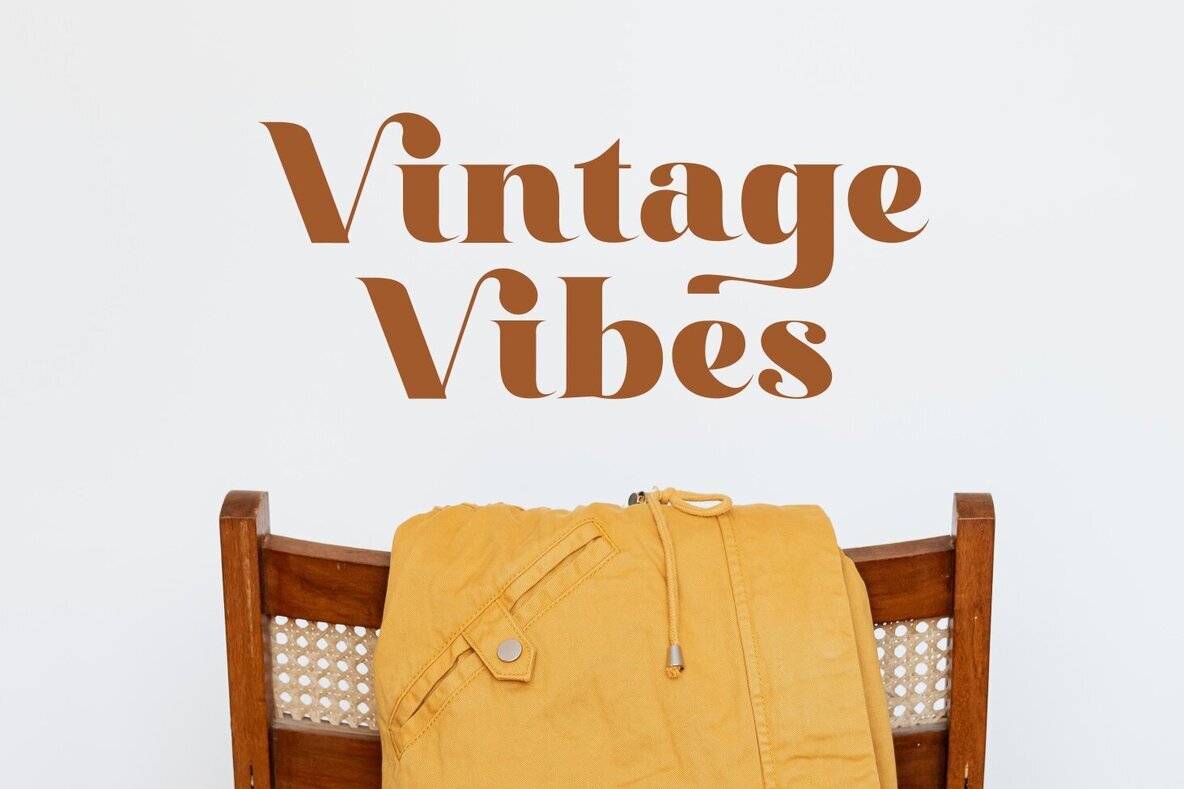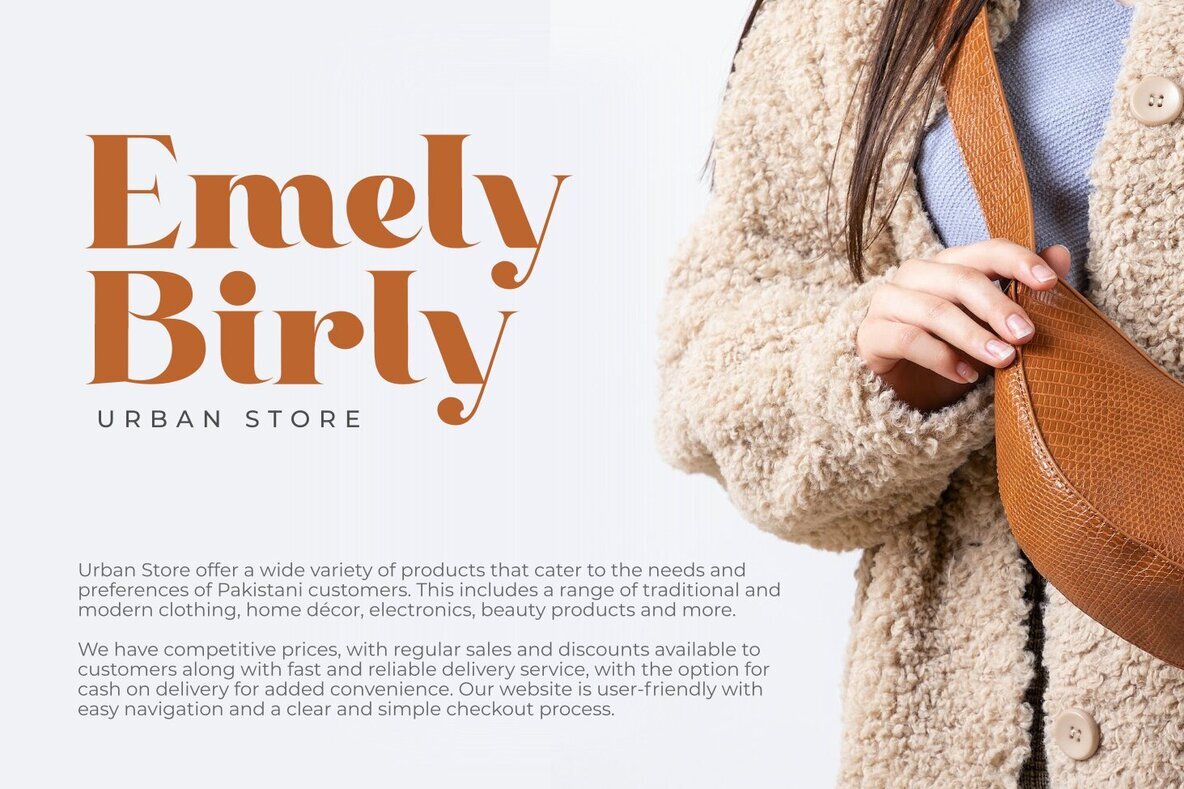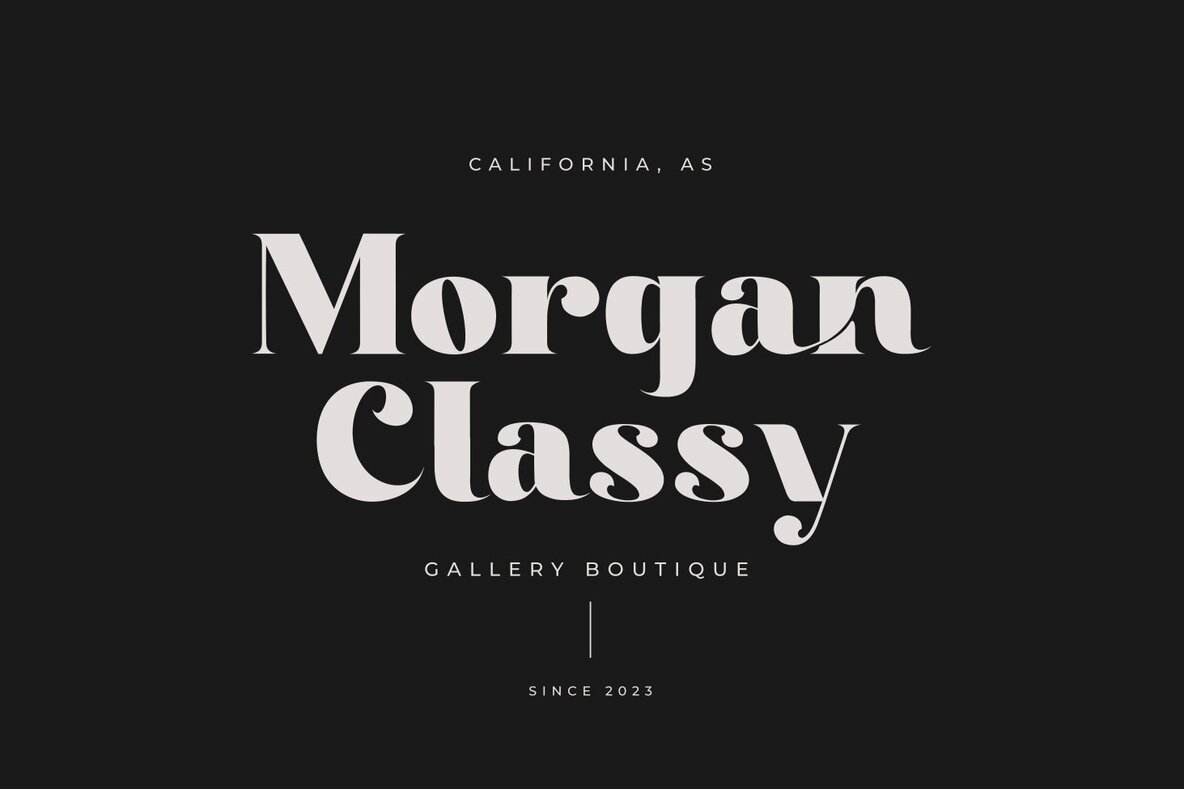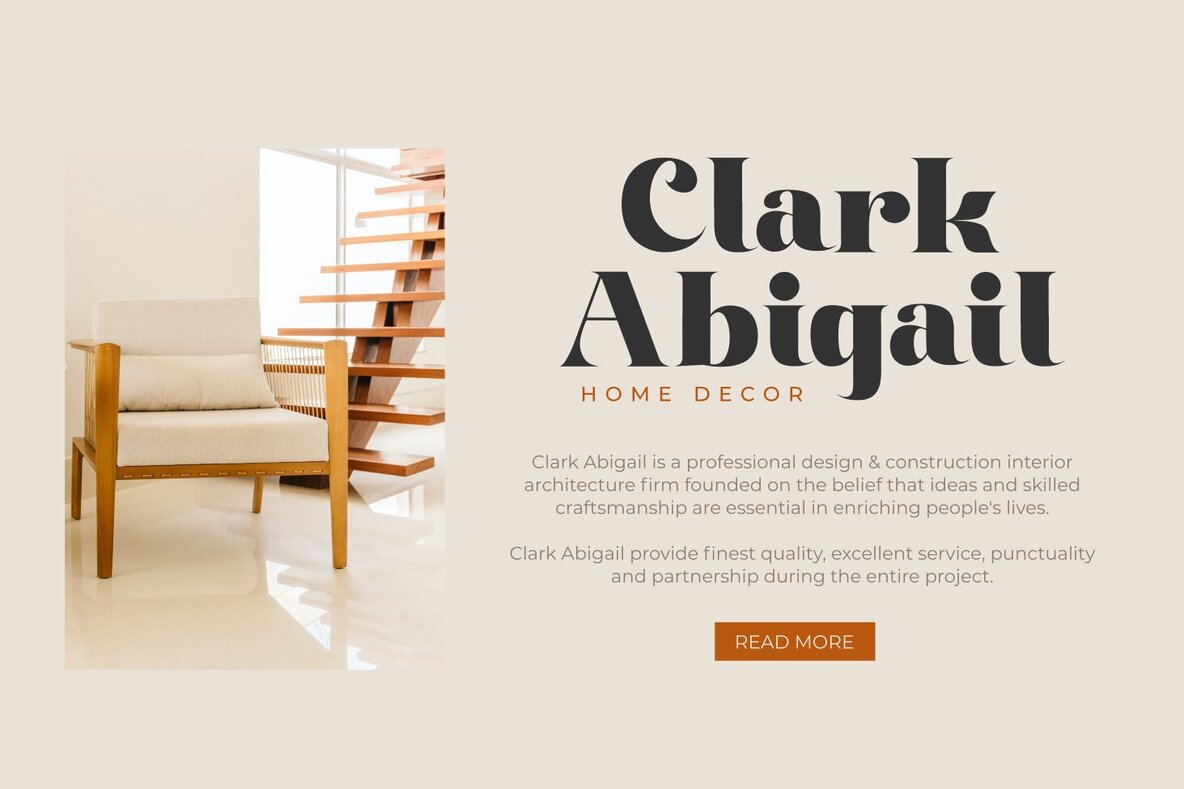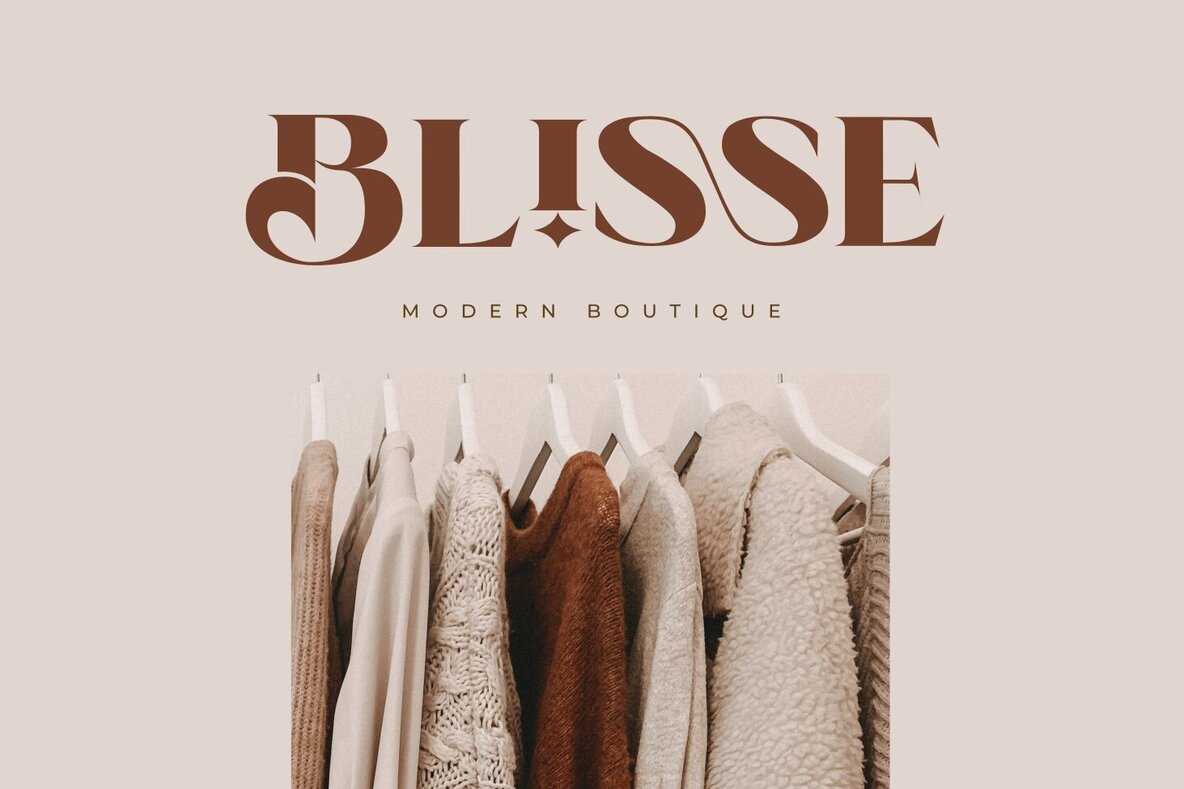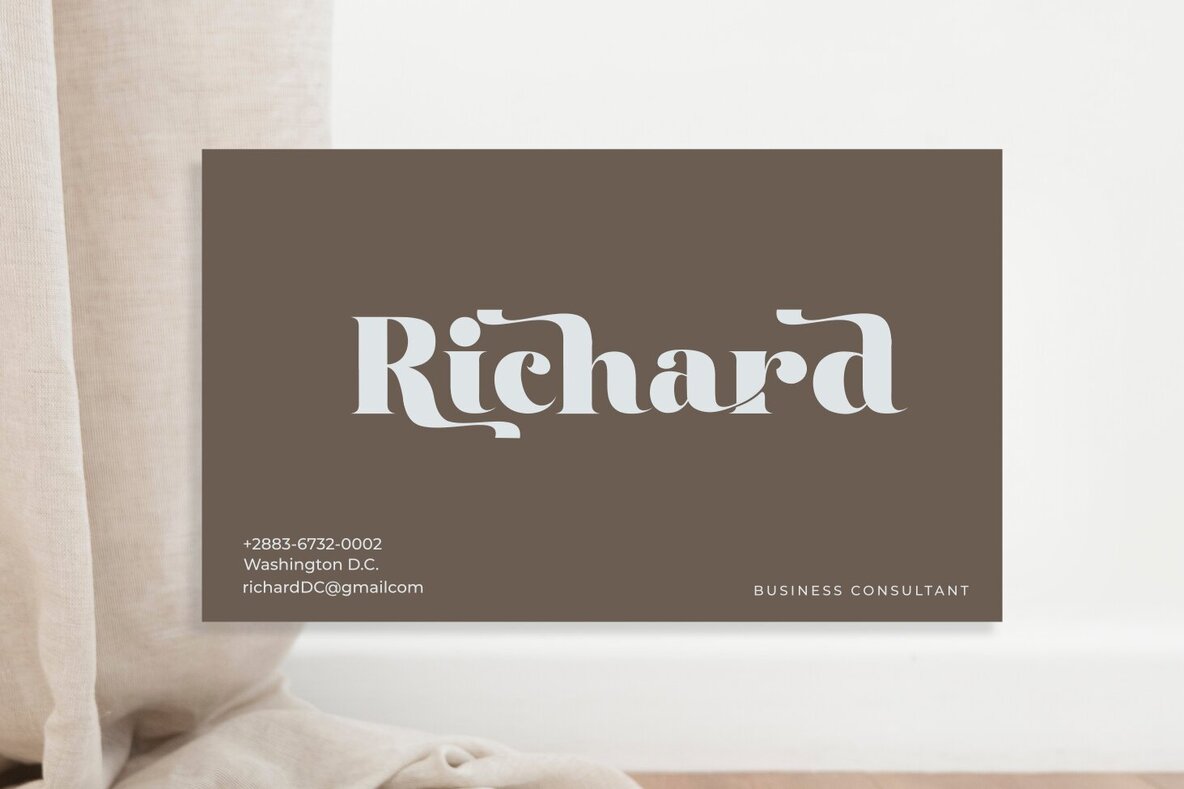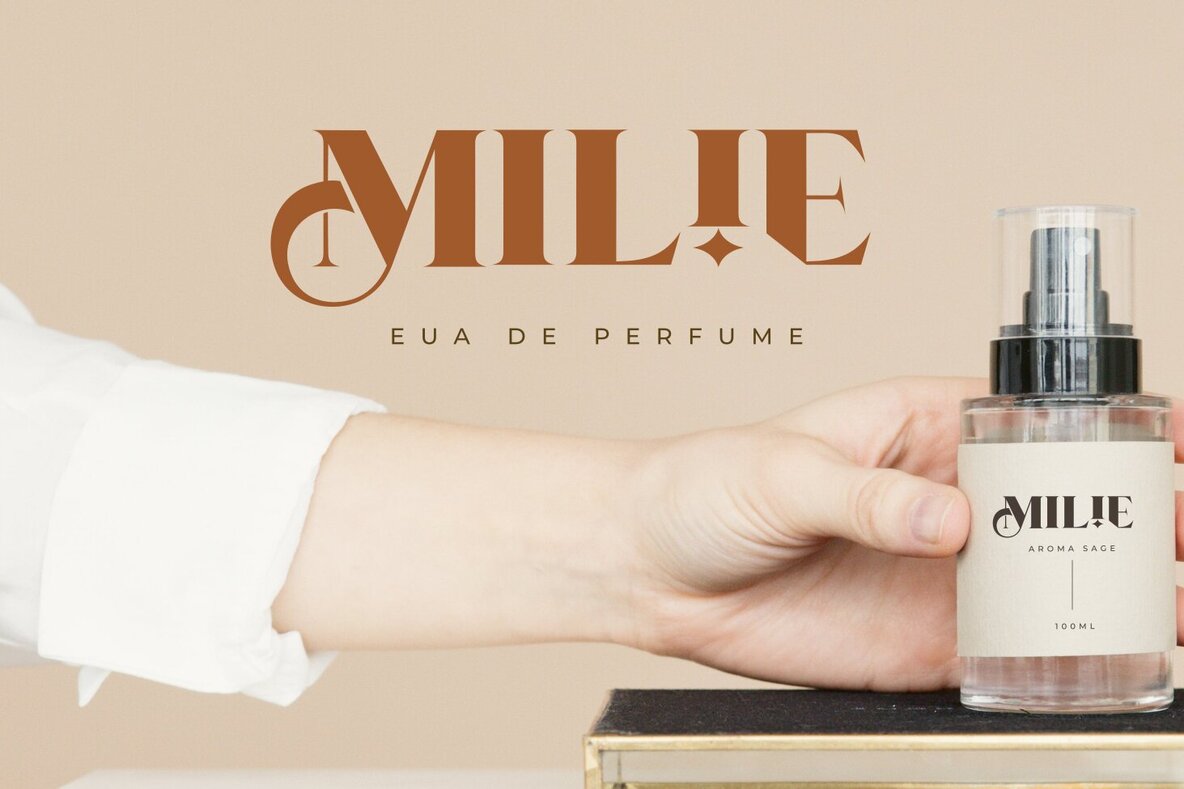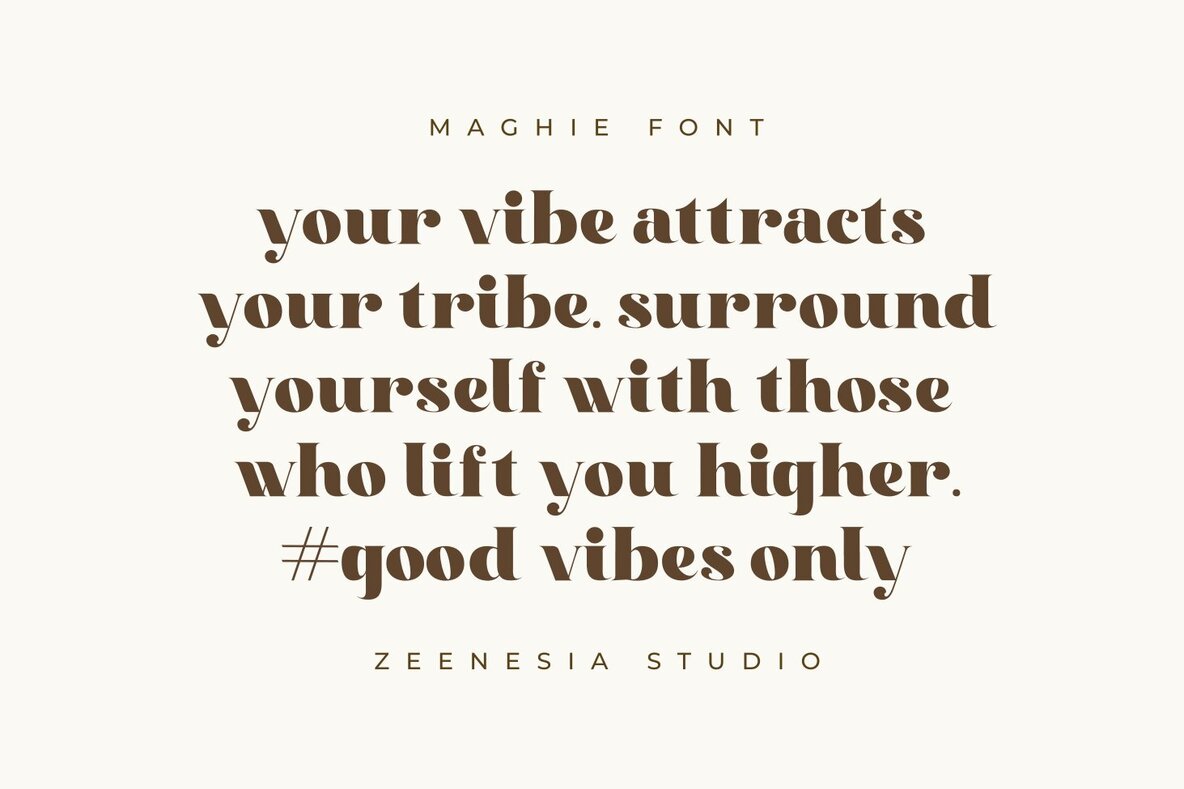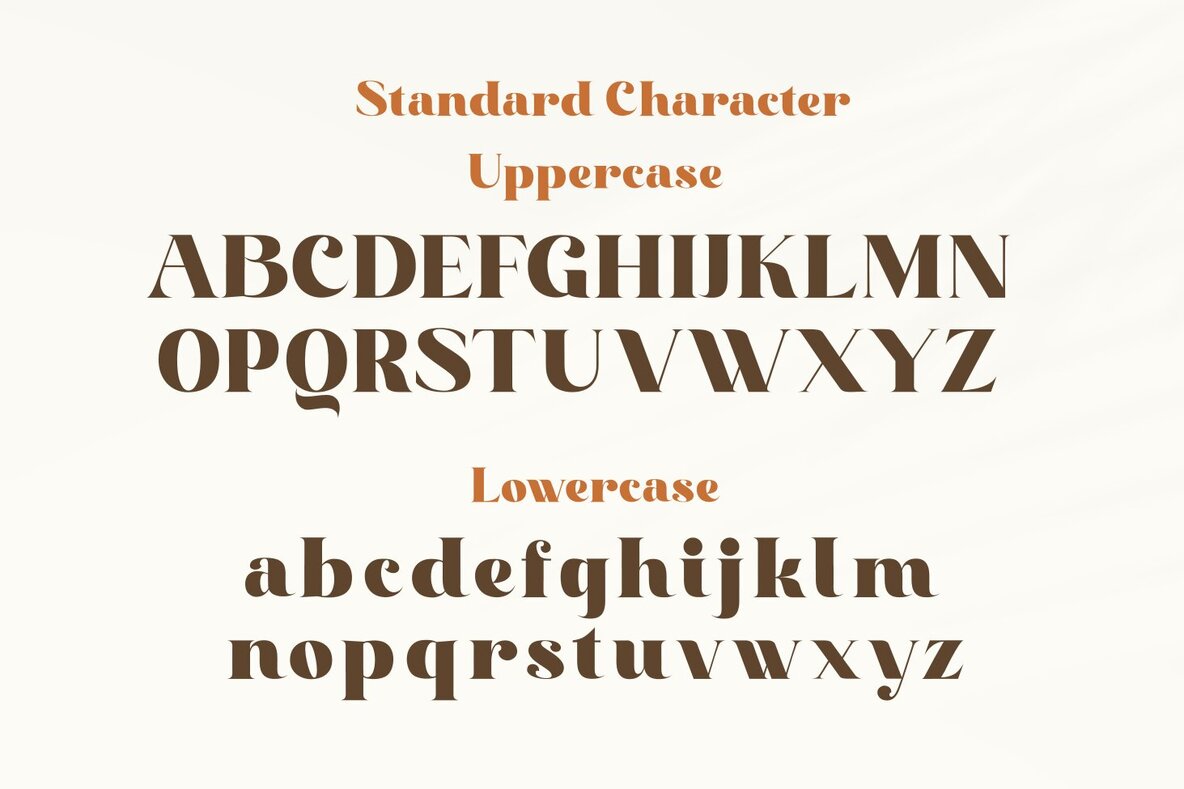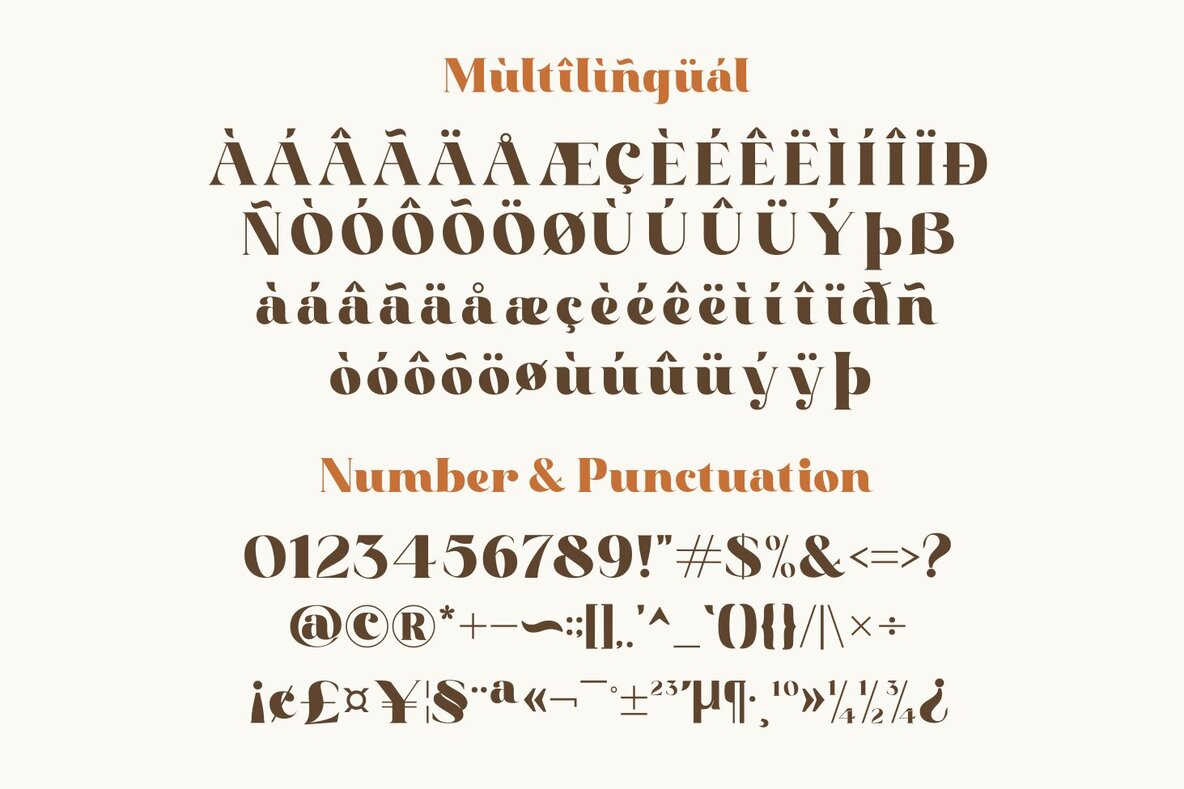
Maghie Font
Maghie Regular
Maghie is a modern and unique sans serif font known for its versatility and sophistication. Ideal for both large and small applications, it is well-suited for advertising, branding, logotypes, packaging, titles, headlines, and editorial design. The font includes a wide range of alternate variants and natural ligatures, enhancing its classy and elegant appearance. OpenType features ensure your project achieves perfection with this font.Maghie: A Versatile Sans Serif Font